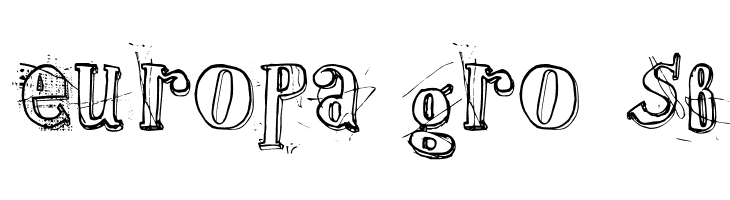
An artistic, handcrafted font with thin, elongated strokes and subtle irregularities.
A bold, artistic serif font with unique curves and strong presence.
A distinctive, hand-drawn style font with elegant, irregular strokes.
A geometric, minimalist font with thin, even strokes and angular shapes.
A bold, geometric font with a modern and industrial style.
A bold, distressed font with a vintage, industrial aesthetic.
A hand-drawn, light font with a geometric yet organic style.
A bold, tall serif font with strong vertical emphasis and pronounced serifs.
A tall, narrow, and modern font with clean lines and a sleek aesthetic.
A bold, condensed sans-serif font with a modern and sleek appearance.
A bold, shadowed font with a modern and decorative style.
A bold, wide sans-serif font with a modern, geometric design.
A bold, condensed font with a modern and sleek appearance.
A tall, narrow, and modern font with a geometric style.
A bold, condensed typeface with thick, uniform strokes and minimal spacing.
A bold serif font with a modern yet classic appeal.
A bold, outlined font with a modern and geometric style.
A bold, heart-themed font perfect for romantic and playful designs.
A bold, italicized font with heart motifs and a playful, modern style.
A hand-drawn, ink-like font with bold, dynamic strokes and an artistic flair.
A dynamic and flowing script font with elegant, slanted letterforms.
A bold, artistic font with a hand-painted, brush calligraphy style.
A bold, textured, hand-drawn font with a casual and artistic style.
Bold, textured font with a rugged, dynamic appearance.
A distressed, vintage-style font with a rubber stamp appearance.
A decorative font with bold letters and whimsical mermaid illustrations.
A dynamic, oblique font with sharp angles and high contrast, exuding energy and motion.